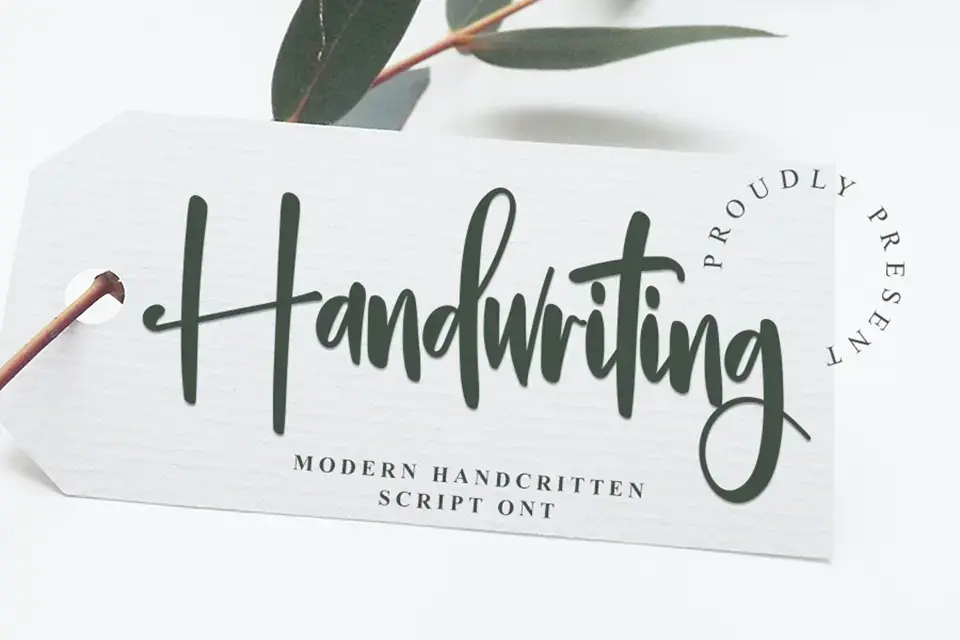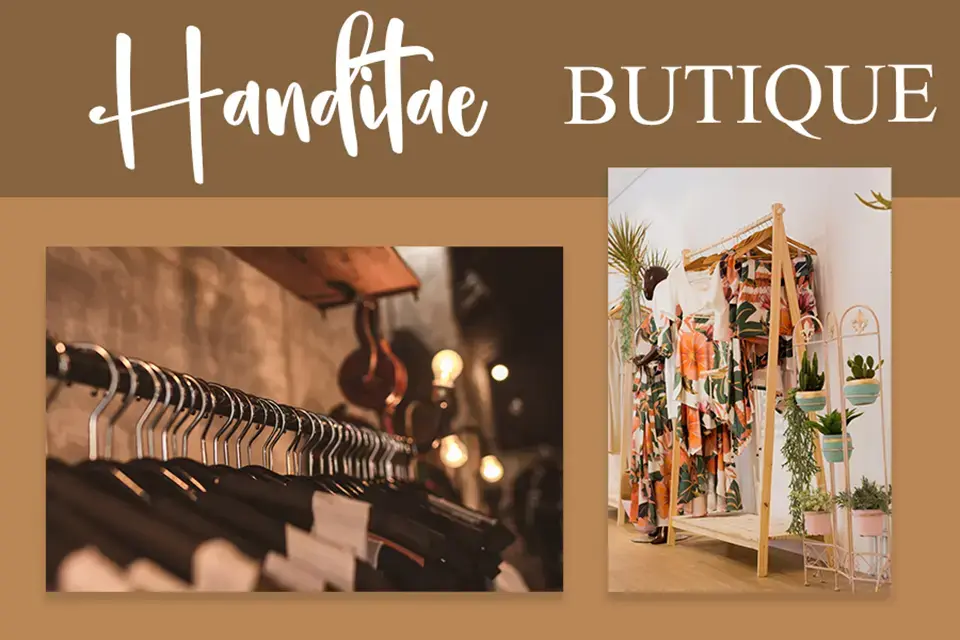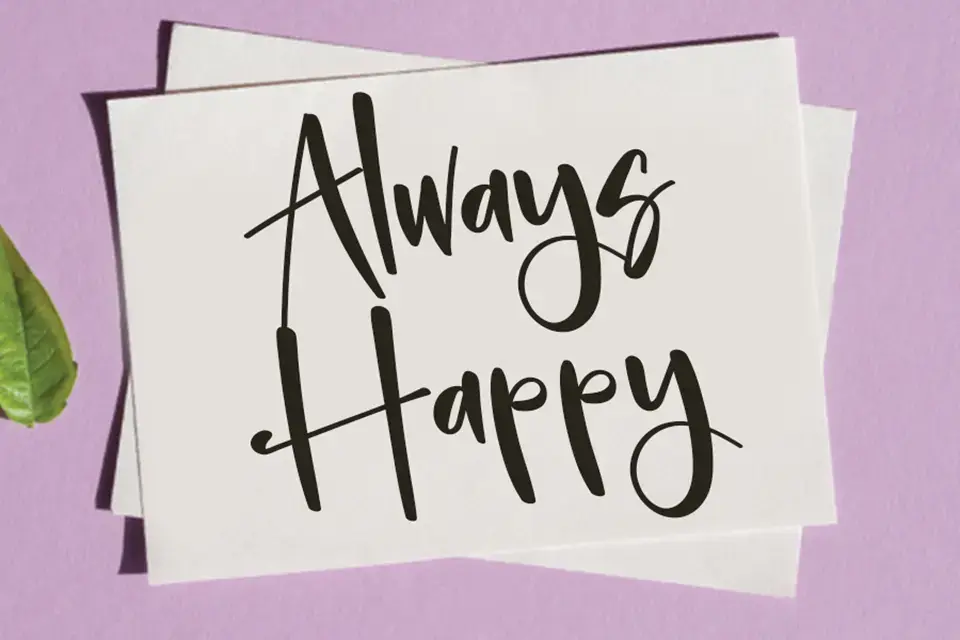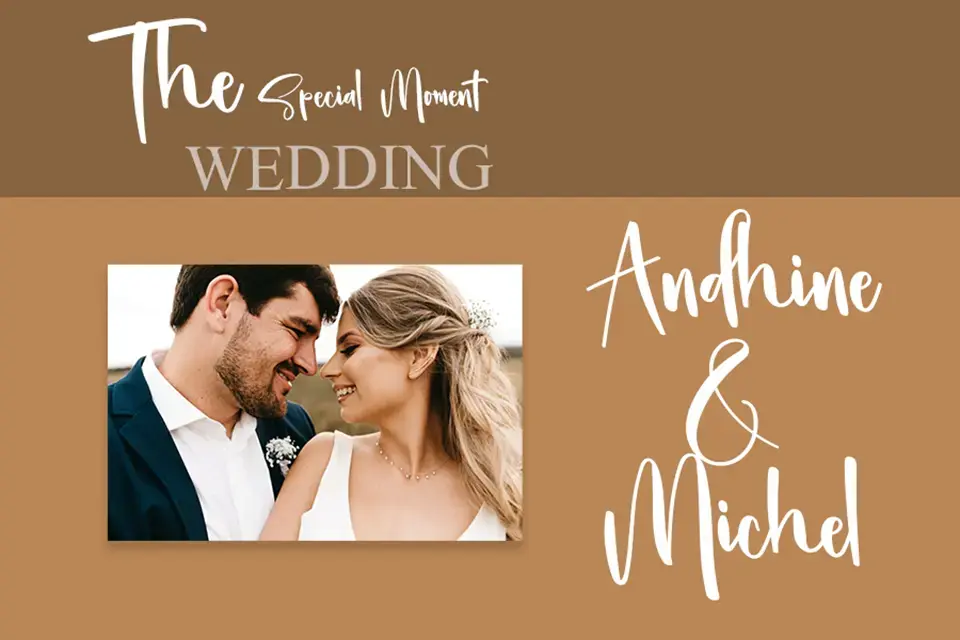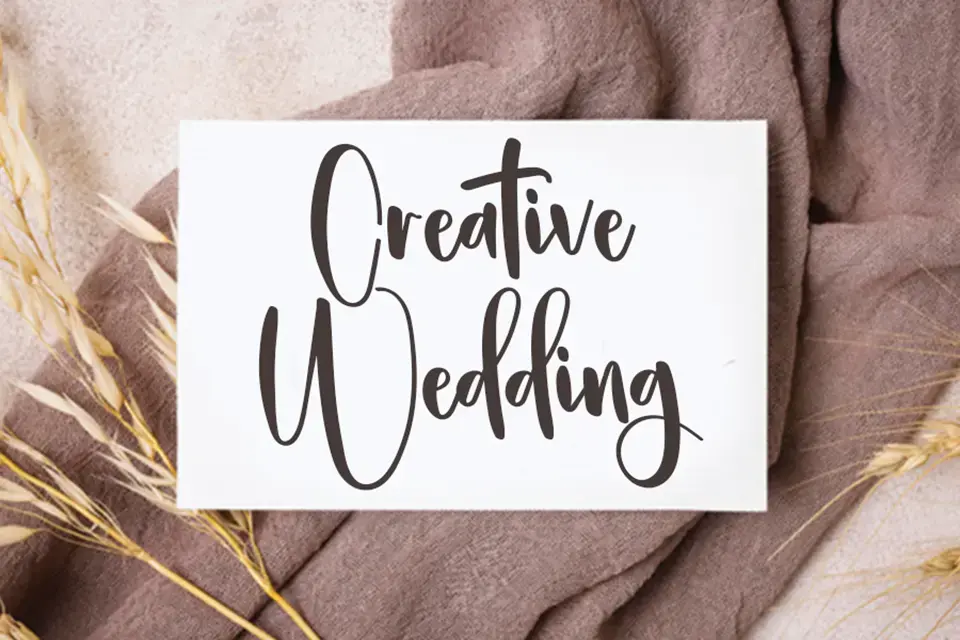
Handwriting Script Font
Designed by Inermedia Studio
Designed by Inermedia Studio, Handwriting Script Font captures the unpolished beauty of quick, everyday penmanship. Its slightly irregular baseline and varied stroke weights give it a casual, organic energy that feels remarkably genuine. The letterforms flow naturally, balancing a loose structure with legible spacing. This aesthetic shines when applied to artisan coffee packaging, personalized direct mailers, or independent lifestyle blog headers where a human touch is required. However, it struggles in corporate reports or dense paragraphs, as the spontaneous curves become visually exhausting at smaller sizes. Compared to traditional formal calligraphy, this typeface embraces minor imperfections, resulting in a relaxed vibe that speaks directly to audiences seeking approachability rather than strict elegance.
Artisan product packaging
Independent lifestyle blog headers
Personalized direct mail campaigns
Boutique brand identity
Dense body copy or long paragraphs
Highly technical corporate reports
Interface elements requiring high legibility
Perfect for branding, packaging, and social media, with a creative and handwritten style.